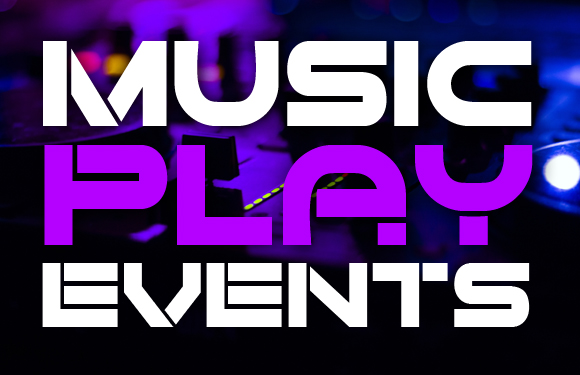
Behold, the Forvertz Font - a typographic masterpiece that's ready to take your designs to the next level! This display font is crafted with clean, bold stencil lines that exude a futuristic and captivating aura, making it perfect for creating striking headlines, logos, and posters that are sure to turn heads.
Unleash the power of Forvertz and see your words leap off the page with a techno-inspired edge. With two distinctive styles at your fingertips, you have full control over how you want to express your message. Customize your typographic designs and create a visual experience that resonates with your audience.
Dive into the world of Forvertz and discover a font that's as versatile as it is eye-catching. Whether you're crafting sci-fi-themed projects or seeking a font that exudes a bold, industrial aesthetic, Forvertz is the perfect choice. Its clean and crisp lines create a sense of order and precision, ensuring your designs demand attention.
Embrace the future of typography with Forvertz. Its unique stencil style is a breath of fresh air, allowing you to create designs that break free from the norm. From posters that command attention to logos that leave a lasting impression, Forvertz is the font that sets your designs apart.
So, why settle for ordinary when you can have extraordinary? Immerse yourself in the world of Forvertz and unleash your creativity like never before. Its clean, bold stencil lines are sure to captivate your audience and leave them craving more.